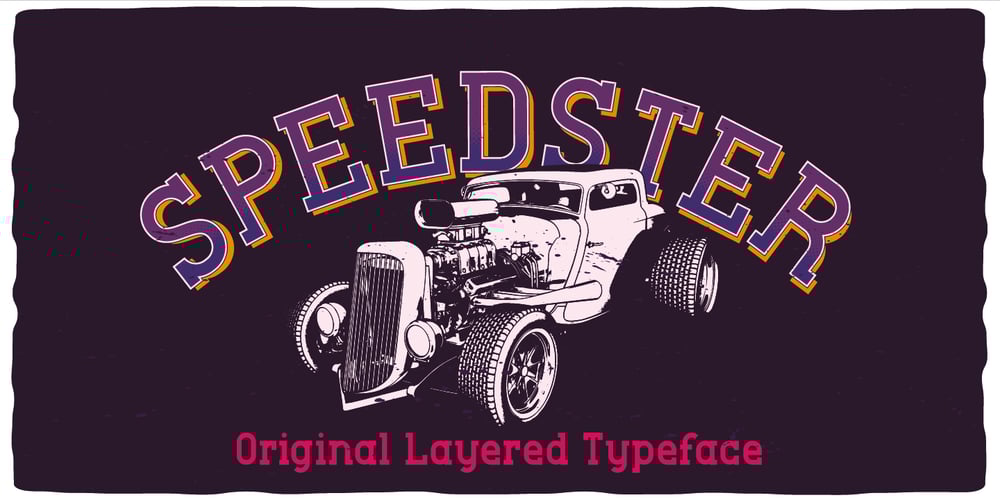
Speedster Font Family was designed by Oleg Voznyy and published by Vozzy. Speedster contains 5 styles and family package options. Introducing a vintage label font named Speedster. This strong typeface is perfect for lettering on vintage style posters, t-shirts, greeting cards, logo etc. All available characters and styles you can see at the preview.